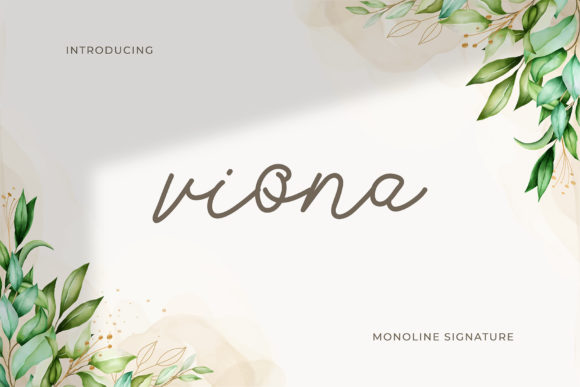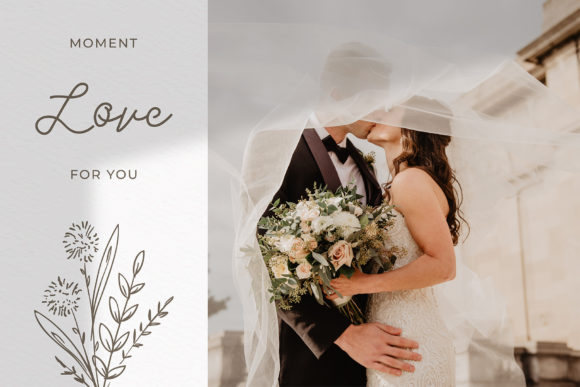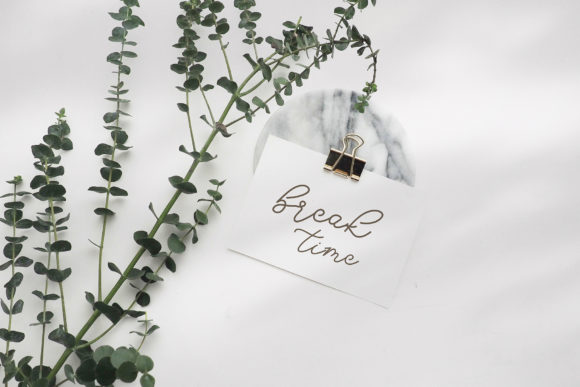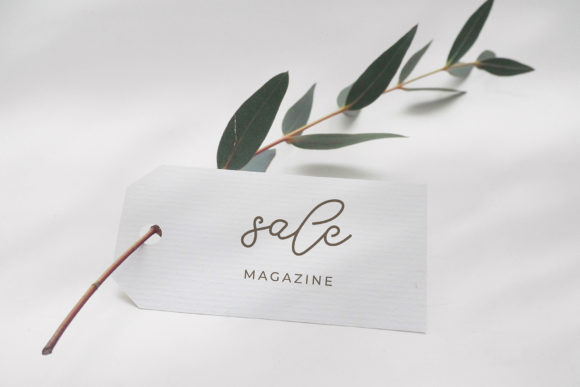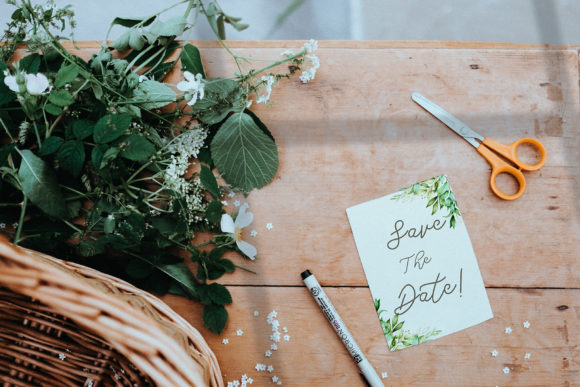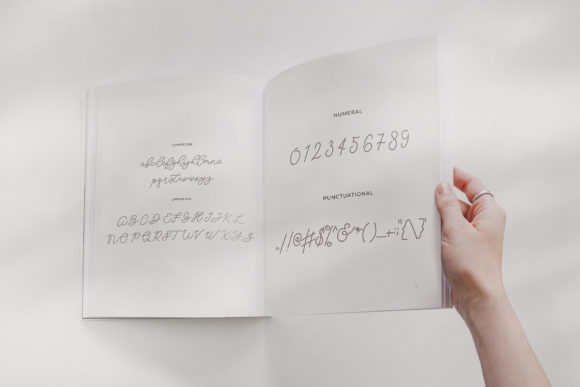
Viona Font
About Viona Font
Viona is a sweet and flowing handwritten font. Its natural and unique style makes it incredibly fitting to a large pool of designs.